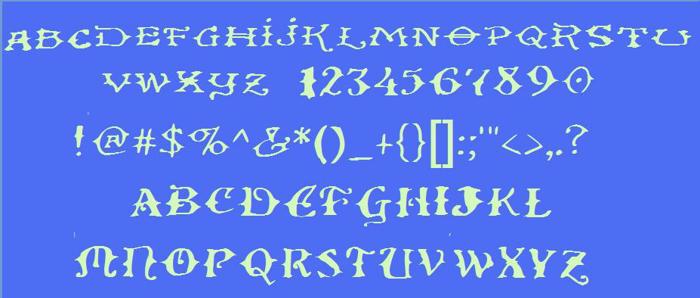
Ol' Wes' Rustik Font
The bad news is in hand drawing this font I messed up, the good news is I decided to continue it anyway. It was originally to pay tribute to the American sign painters in the late 19th and early 20th Centuries. Back then their work was widespread. The characters are done largely in a style of this period. "Thorns" were added to almost all the characters to further enhance the Western look.
Ol' Wes' is a showy way of saying "Old West" . In making the font there was ink bleedthough on some characters (which is the mistake I was refering to) is where the "rusitic" or as I called it "Rustik" part of the name came about.
Back then we had Serif, Script, Text (then considered Gothic) and other font as today. We had font sizes too. One catergory that isn't too widely used nowadays is they used to also separate "printer fonts" from "sign painter's fonts". Printer fonts were fonts such as Cheltenham which was heavily used by the original Montgomery Ward operation almost for the life of the company. First for the catalog, then later once Futura and Helvectica came along for stuff such as newspaper ads and employee handbooks all the way until about 1990 when it was replaced with Serifa. Chetenham is heavily used for signage in Celebration, Florida (at least as of my 1998 visit to the time).
Playbill was another font of the era that was used heavily on "WANTED" posters and other bills. Of course today a bill means you money just as back then, but "bill" used to have a third meaning
(It's 2nd use was as a name). It meant advertisement or announcement. Back then there were no "classified ads or public notices". Such things were announced using bills or what we now call posters today. At least one thing survives besides these fonts, the phrase "Post No Bills". It means "don't post anything on this wall".
Both Chetenham and Playbill are widely available. You can download them right now from thousands of places, maybe even here at Fontspace. Signpainter font's (which this one is) are very hard to come by. Many even from a brief 1950's and '60's revival (sans-orientation) are no longer available from printers or online. Unlike printer fonts, many signpainter fonts were un-named and were pretty much for sole used by the designer or his crew (back then very few women were in the graphics industry). Some artists would pass there own handwriting with the thorns or swashes as a font. The "handwriting font" is not new, but wasn't called that until very recently. The ending of the Victorian era is the time this font captures.